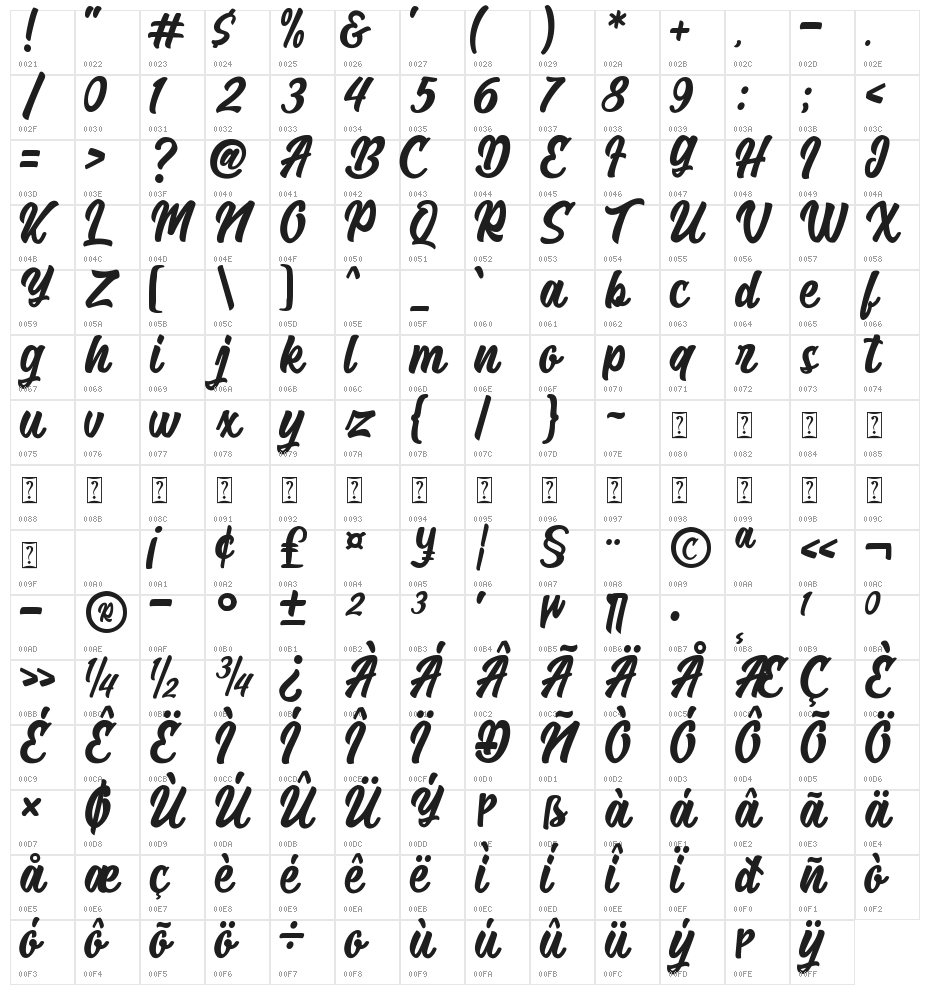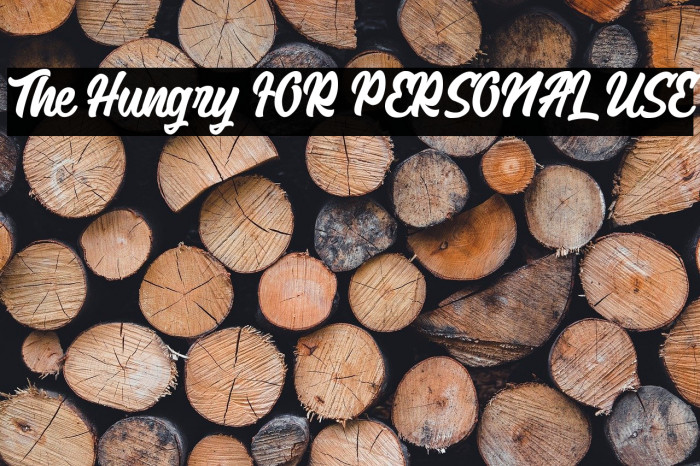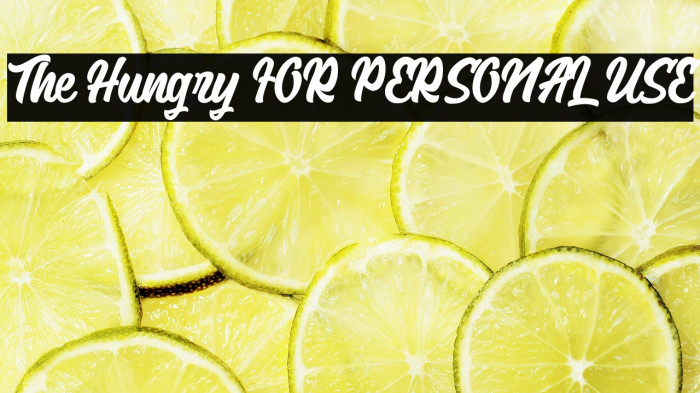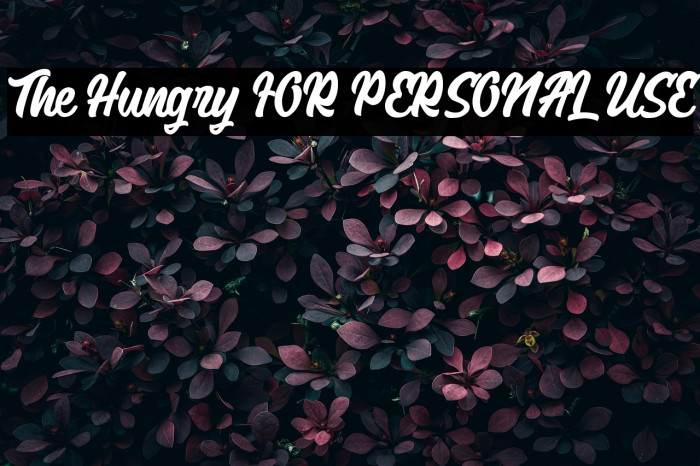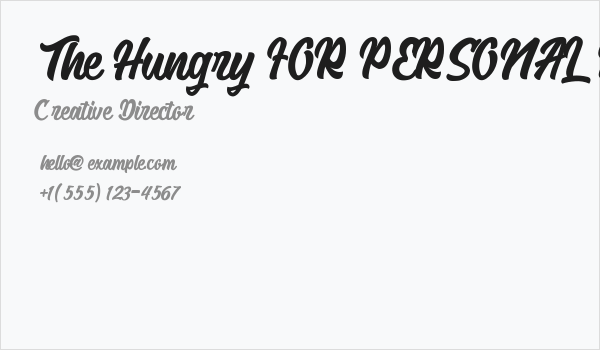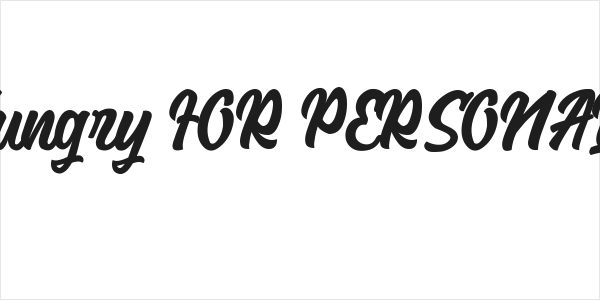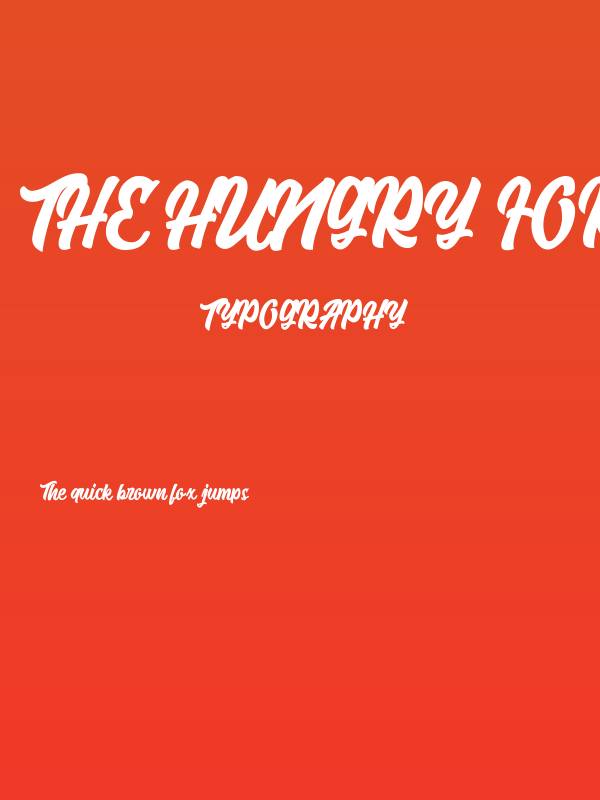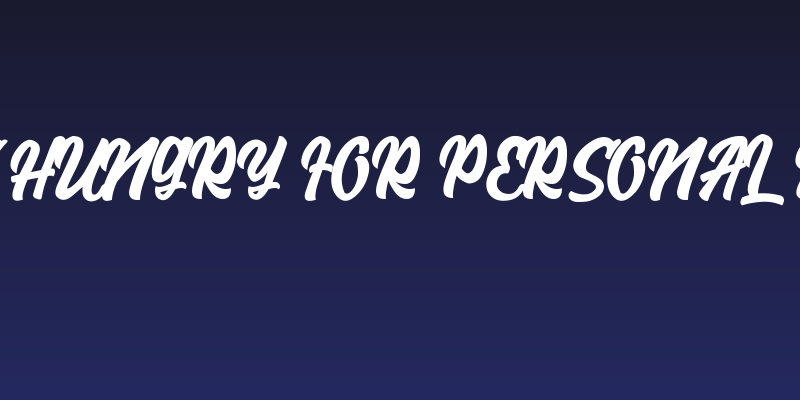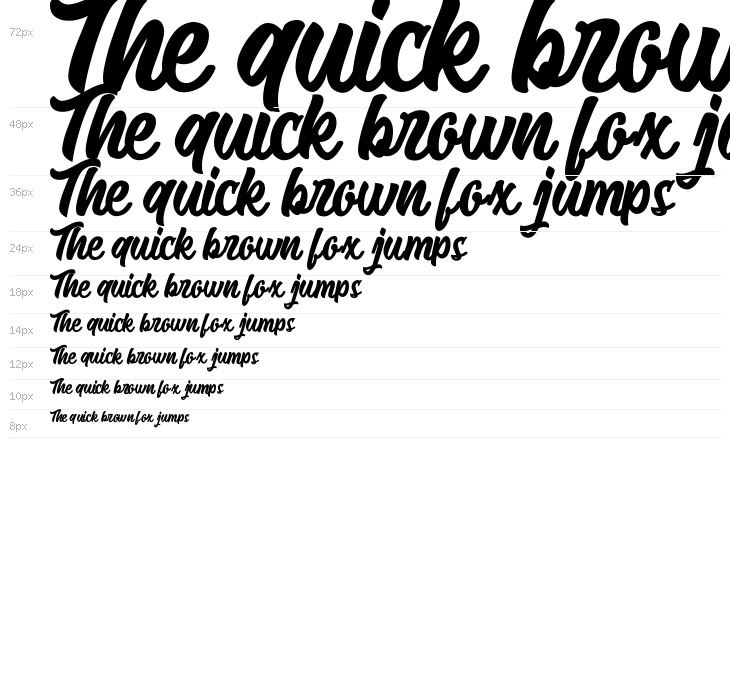
The Hungry FOR PERSONAL USE Font
The Hungry FOR PERSONAL USE Description
This font features a bold, cursive style with a playful and energetic appearance. The letters are interconnected, giving it a flowing script look that mimics handwriting. The strokes are thick and consistent, providing a strong visual impact. The uppercase letters are slightly more elaborate, with some featuring loops and swirls, while the lowercase letters maintain a more straightforward cursive form. The numbers and special characters are designed to match the overall style, ensuring a cohesive look across all characters. This font is well-suited for creating eye-catching designs that require a personal and dynamic touch.
| Proposed Projects | Ideal for branding, logos, invitations, greeting cards, and social media graphics. |